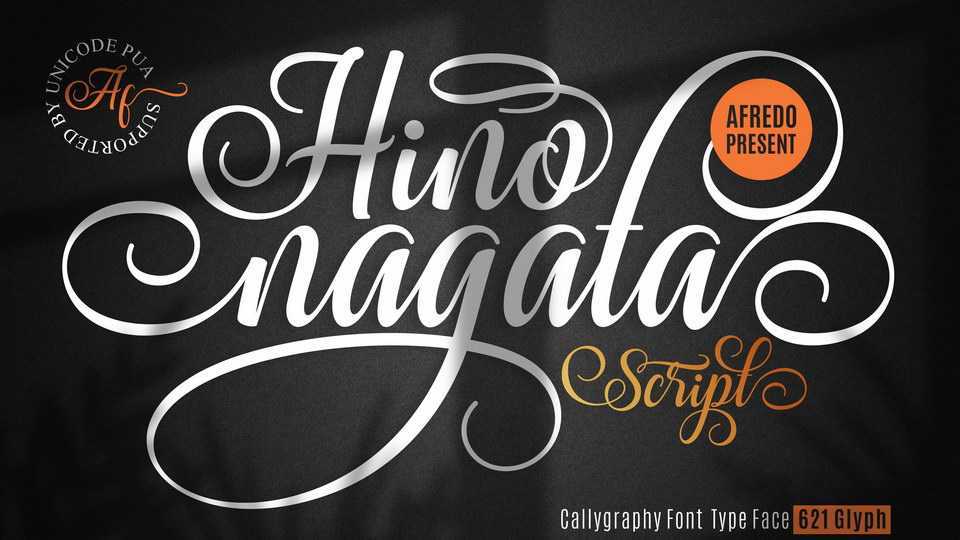
Download Hino Nagata font, a lovely modern calligraphy script with a with decorative characters and dancing baseline. Hino Nagata looks amazing for invitations, greeting cards, branding, labels, social media ans more.